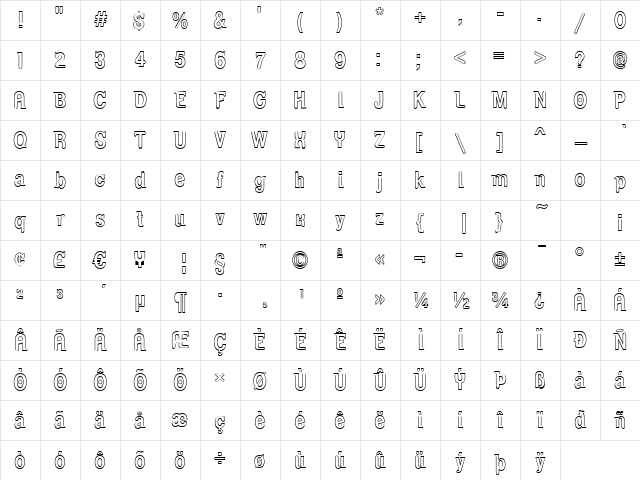
Serifina Outline Regular
Design Context for Serifina Outline
Serifina Outline is built around its visual character rather than neutral utility - its distinctive forms are designed to make an impression at display sizes.
Font Pairing: Pair with a clean neutral sans-serif for body copy to let Serifina Outline's character lead without overwhelming the composition.
Pro Tip: Use Serifina Outline exclusively at display sizes - it was designed to be seen, not read at length. Let a neutral companion handle body copy.